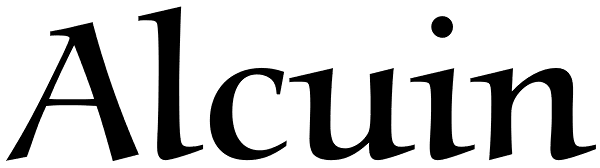
Alcuin
Gudrun Zapf von Hesse designed the first sketches of Alcuin in 1986. The namesake of this typeface was an advisor of Charlemagne and was responsible for the writing reform of the Carolingian era. Alcuin was born in 735 in England, became an abbot in...